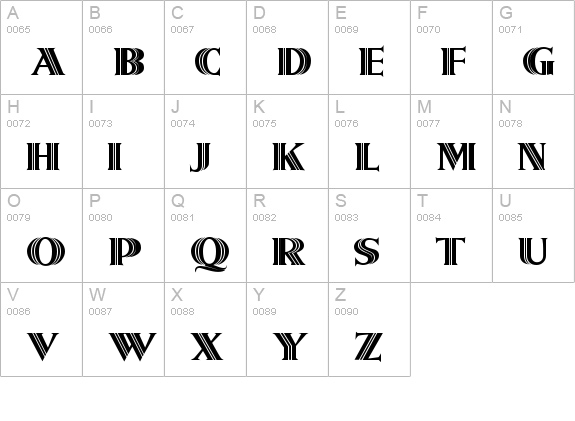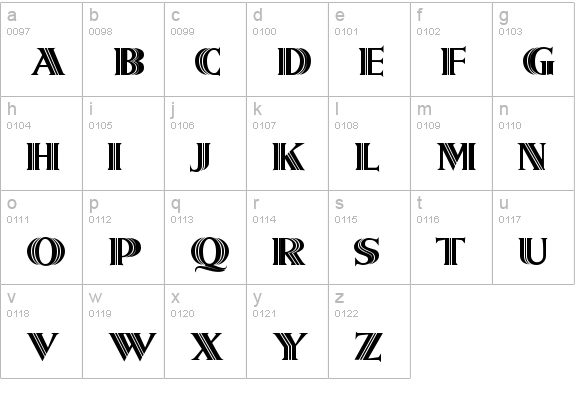
Metroliner Regular is the standard, neutral variant in the Metroliner typeface family \xE2\x80\x94 well suited to general body text, paragraphs, and standard typographic work.
Metroliner Regular font is a sleek and modern typeface that exudes sophistication and professionalism. With its clean lines and sharp edges, this font is perfect for creating eye-catching designs that demand attention. Whether you're working on a branding project, designing a website, or crafting marketing materials, Metroliner Regular is a versatile choice that will elevate your work to the next level. The best part? Metroliner Regular is completely free to download at FontsMarket.com, making it accessible to designers of all levels. Don't miss out on this opportunity to add a touch of elegance to your projects with Metroliner Regular font. Download it today and let your creativity shine!